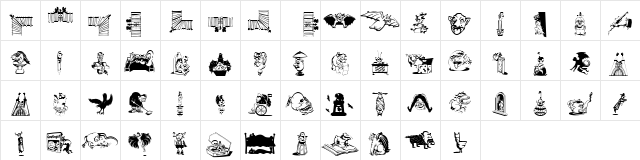
Complete Gargoyles de France Medium glyph index. Displaying only characters natively supported by Gargoyles de France Medium font.
Gargoyles de France is a composed and adaptable typeface that performs quietly and consistently across a wide range of design contexts.